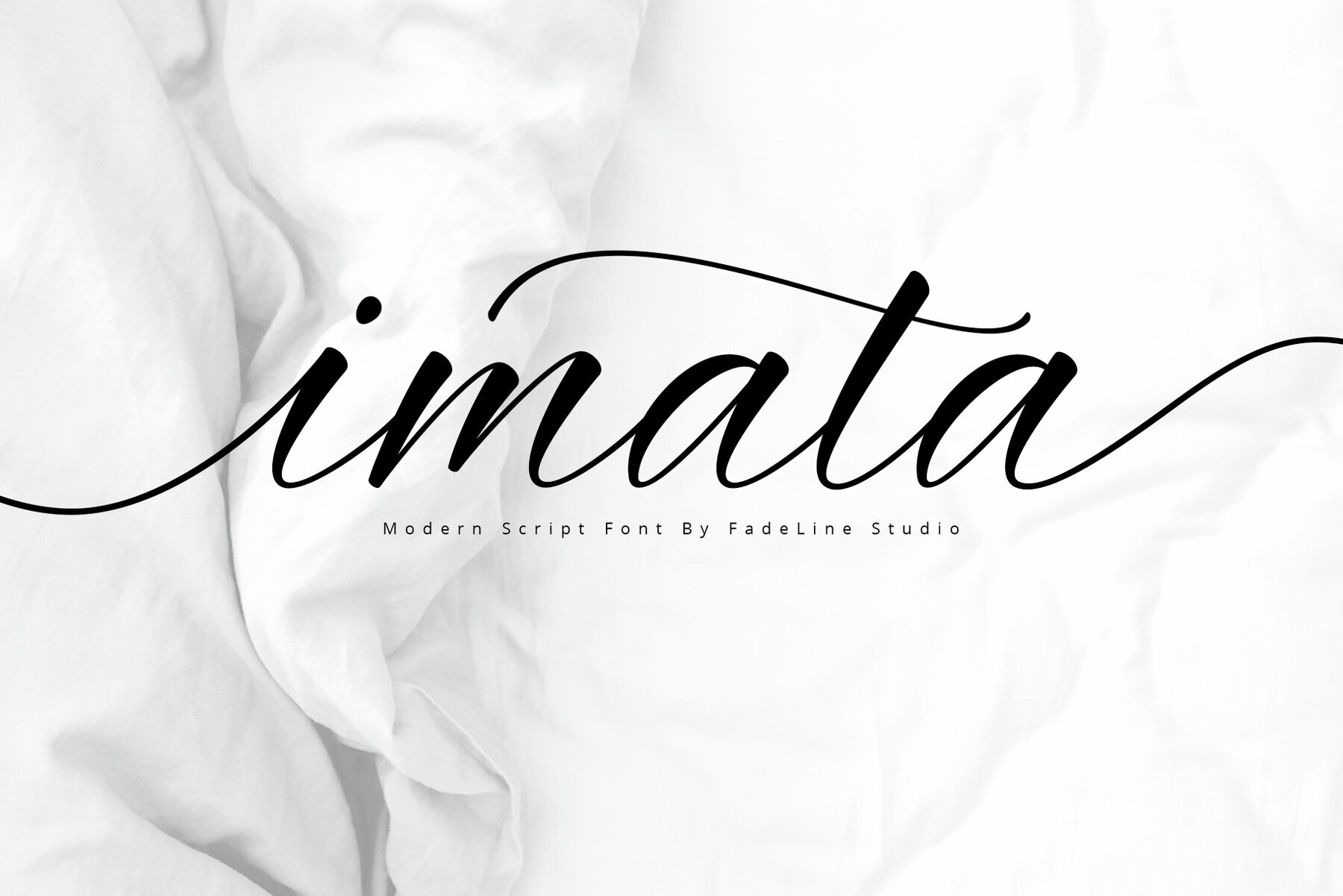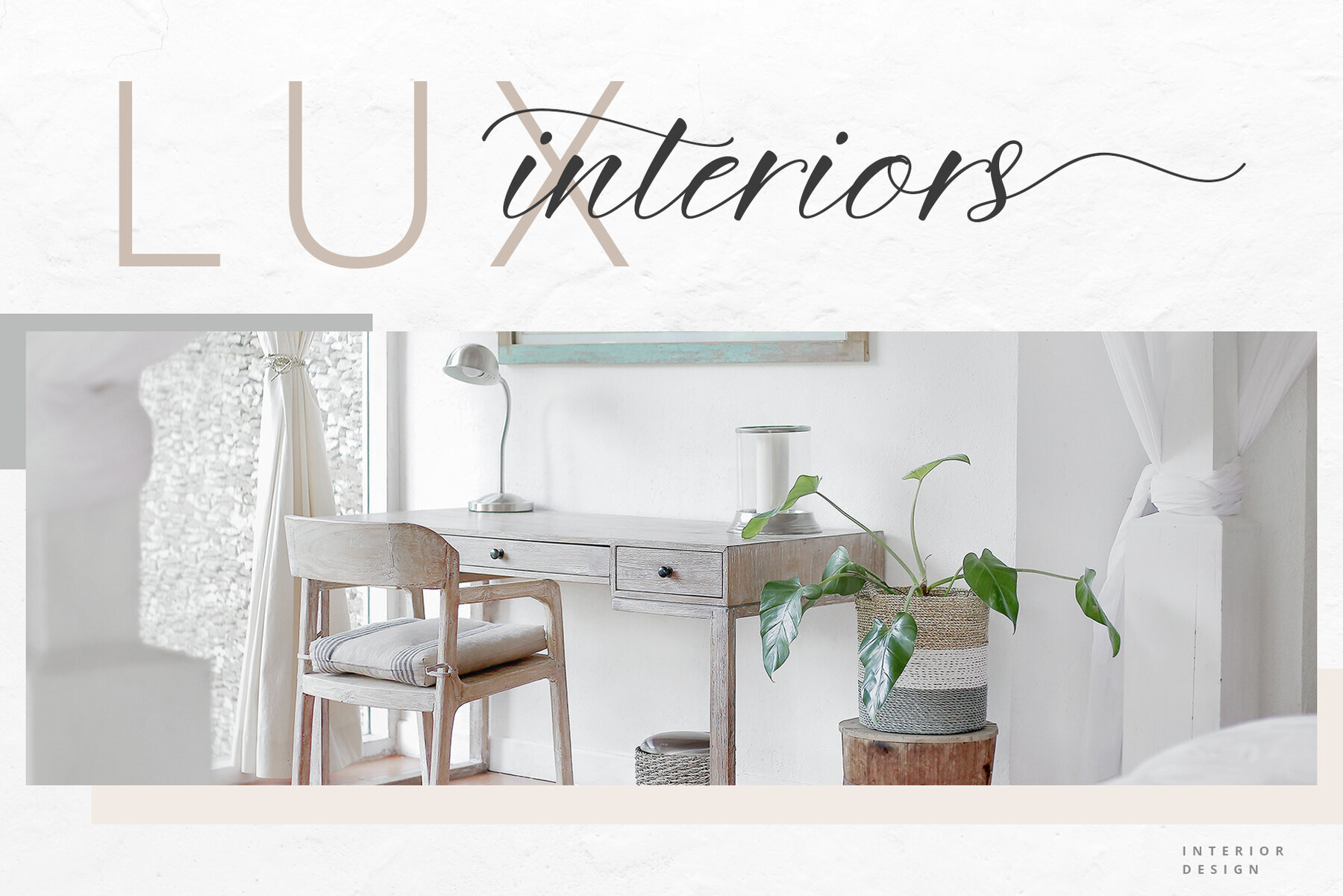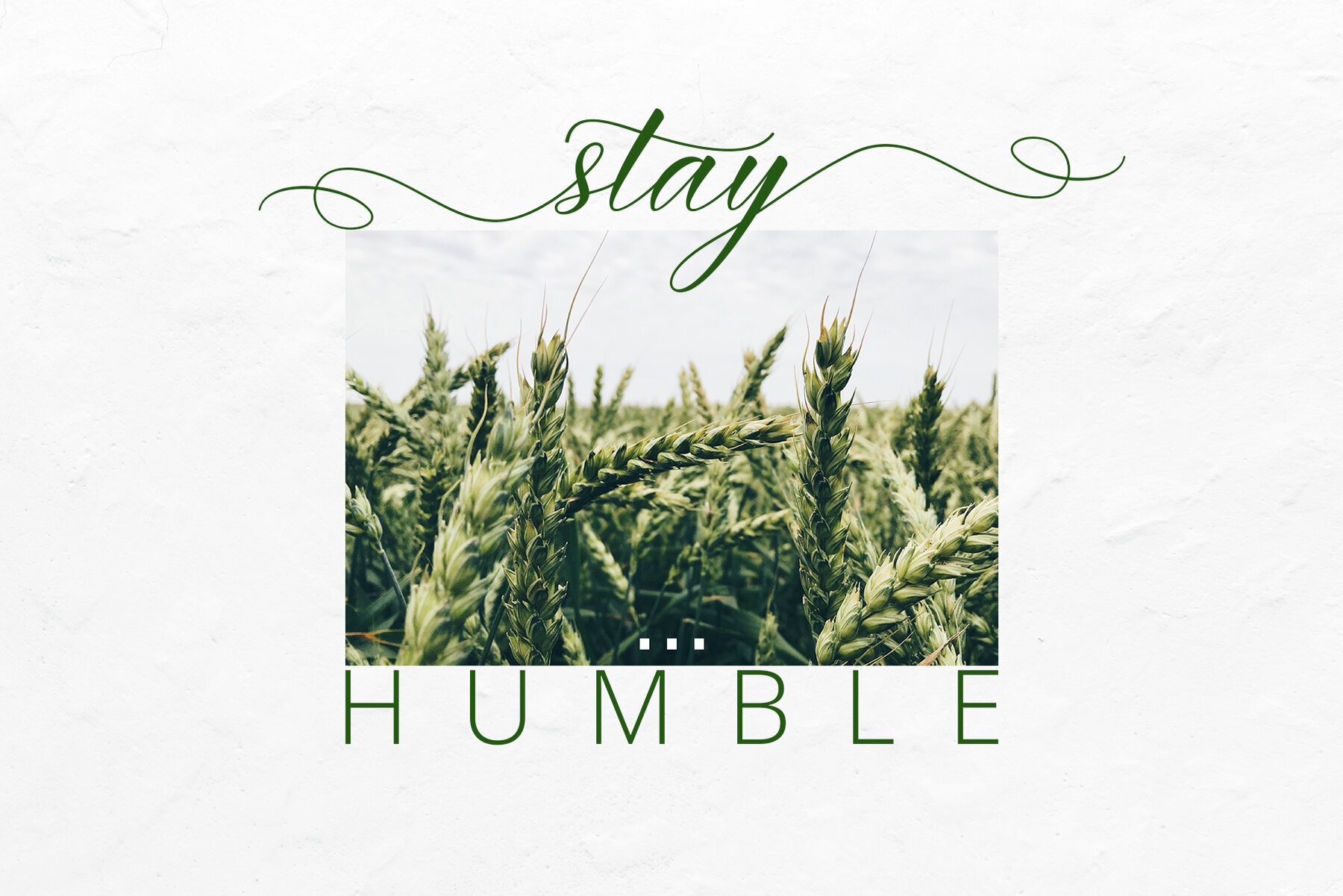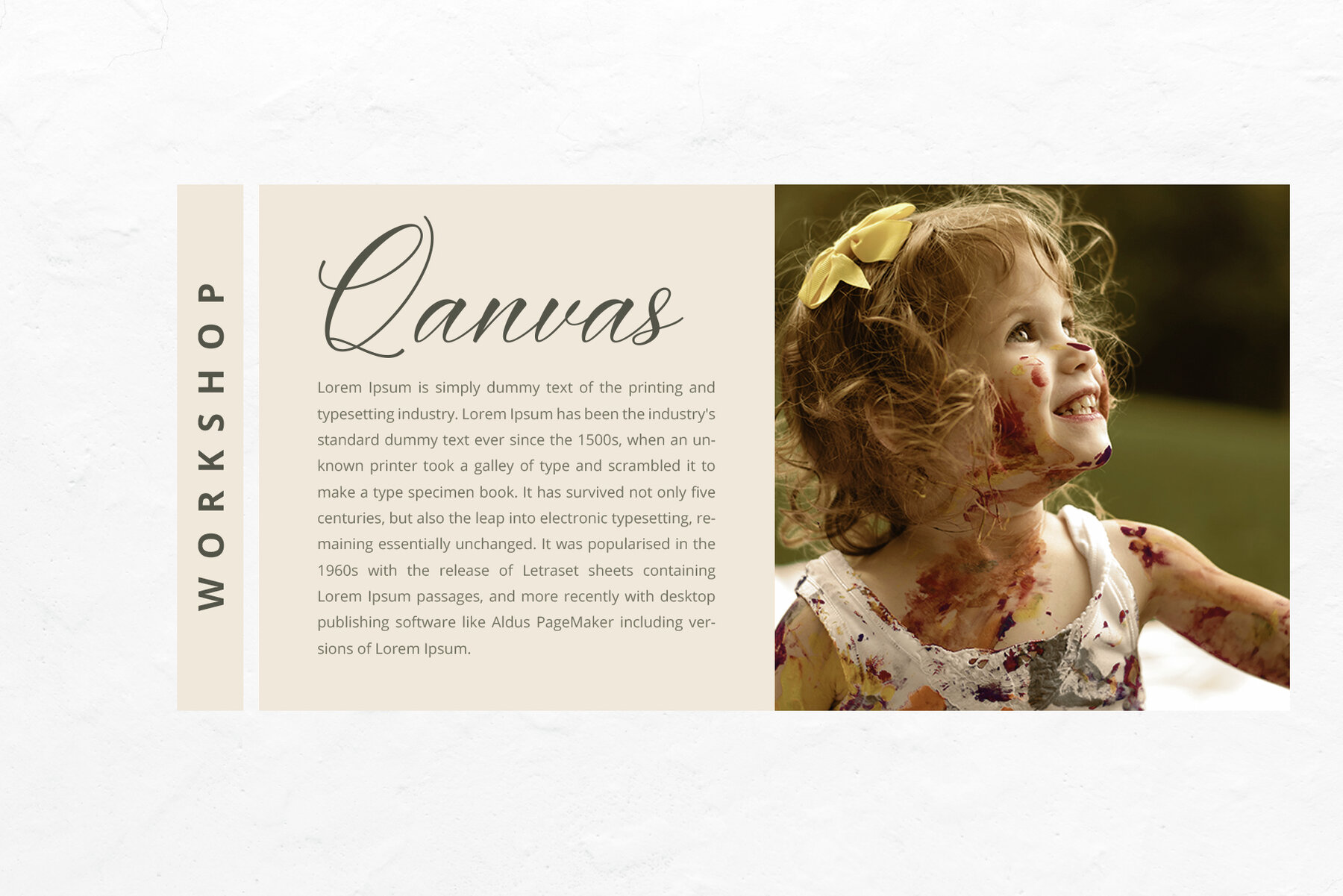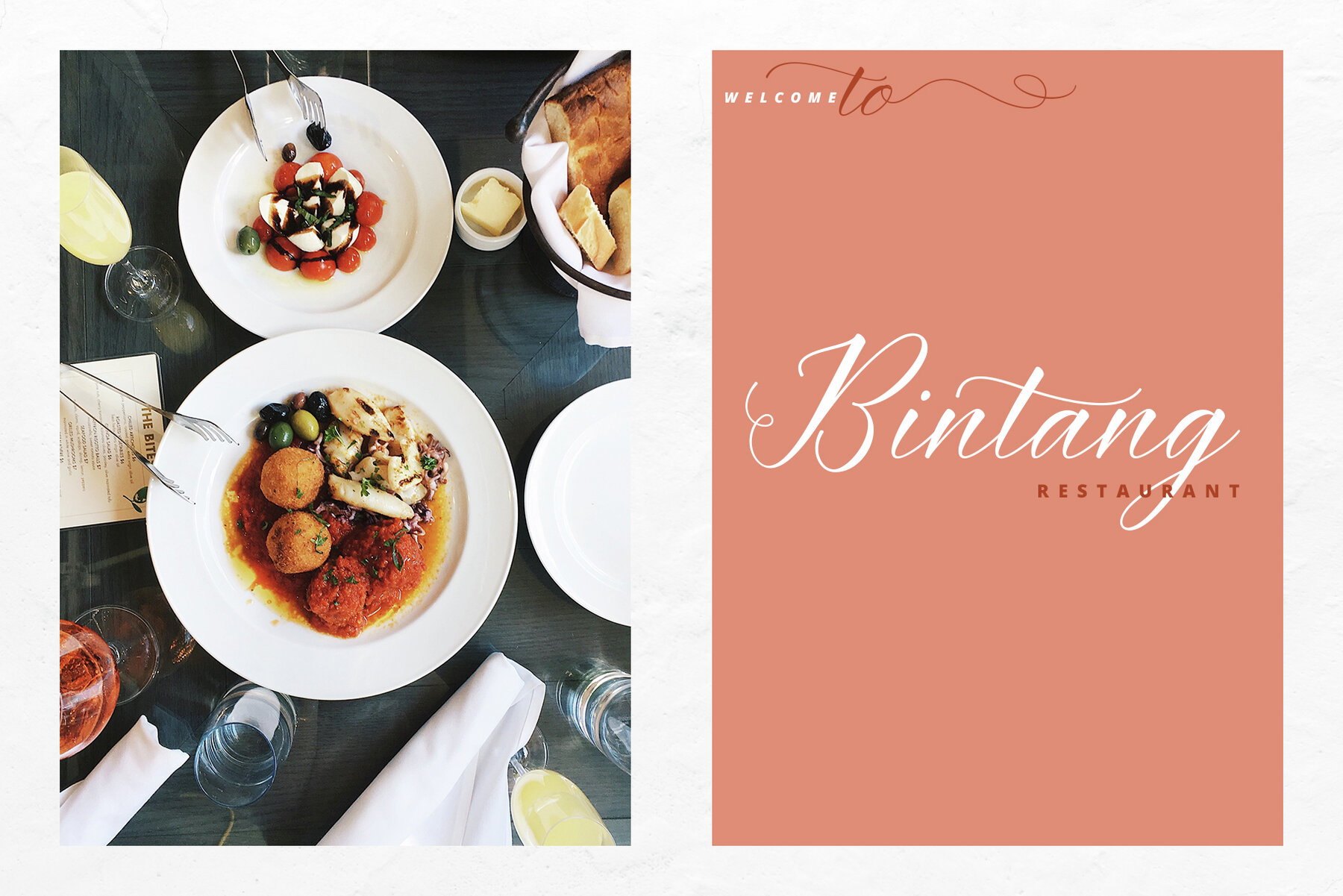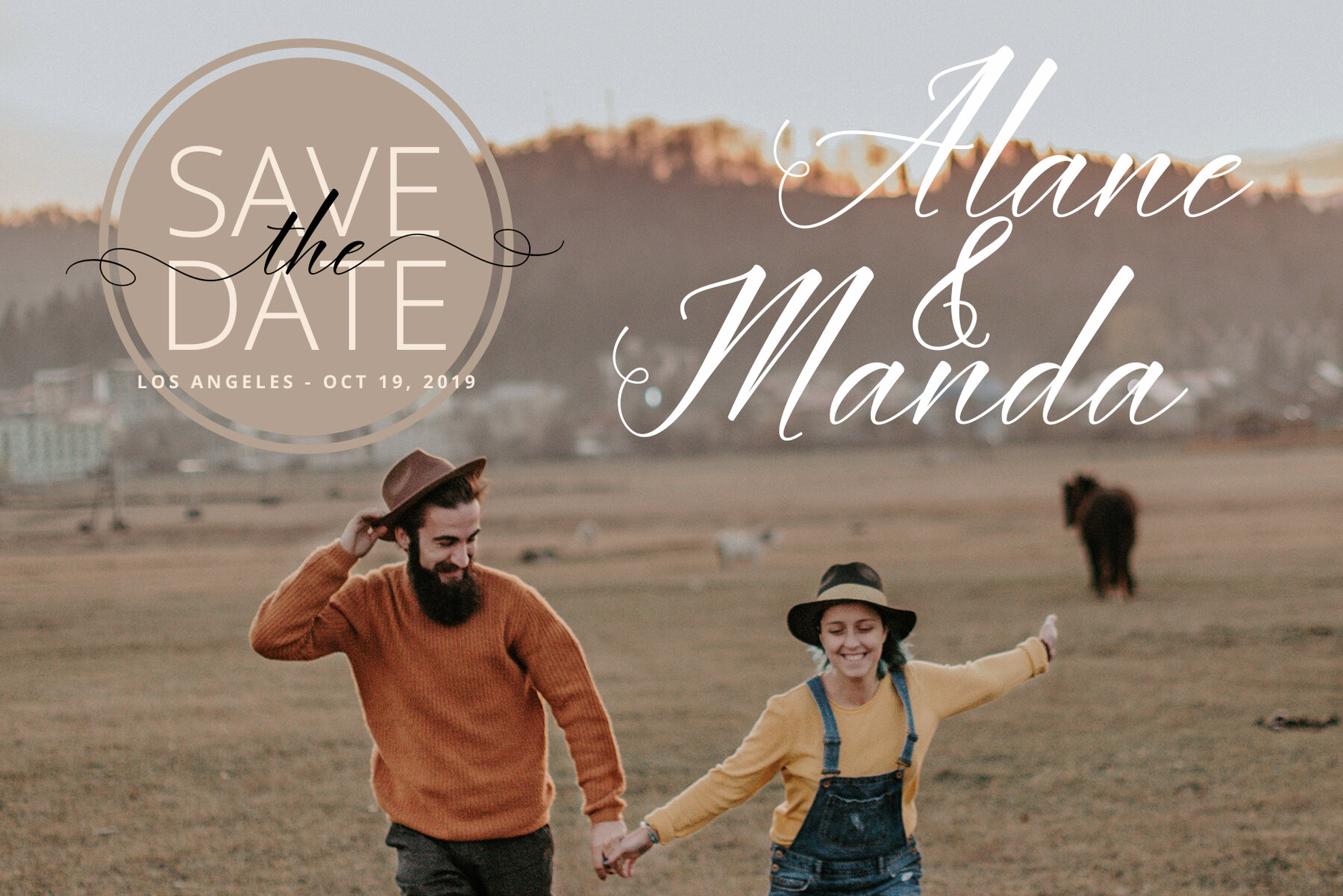
Imata Font
Imata Script
Introducing Imata Script, a modern calligraphy font known for its elegant italic style. Designed with soft and neat glyphs, this typeface brings a sophisticated charm to all your creative endeavors. Whether you're designing a logo, branding a project, or crafting homeware designs, Imata Script serves as the perfect companion for a wide range of applications. Add a touch of refined beauty to your work with Imata Script and let its graceful characteristics elevate your designs to new heights.Imata Script: A Touch of Elegance